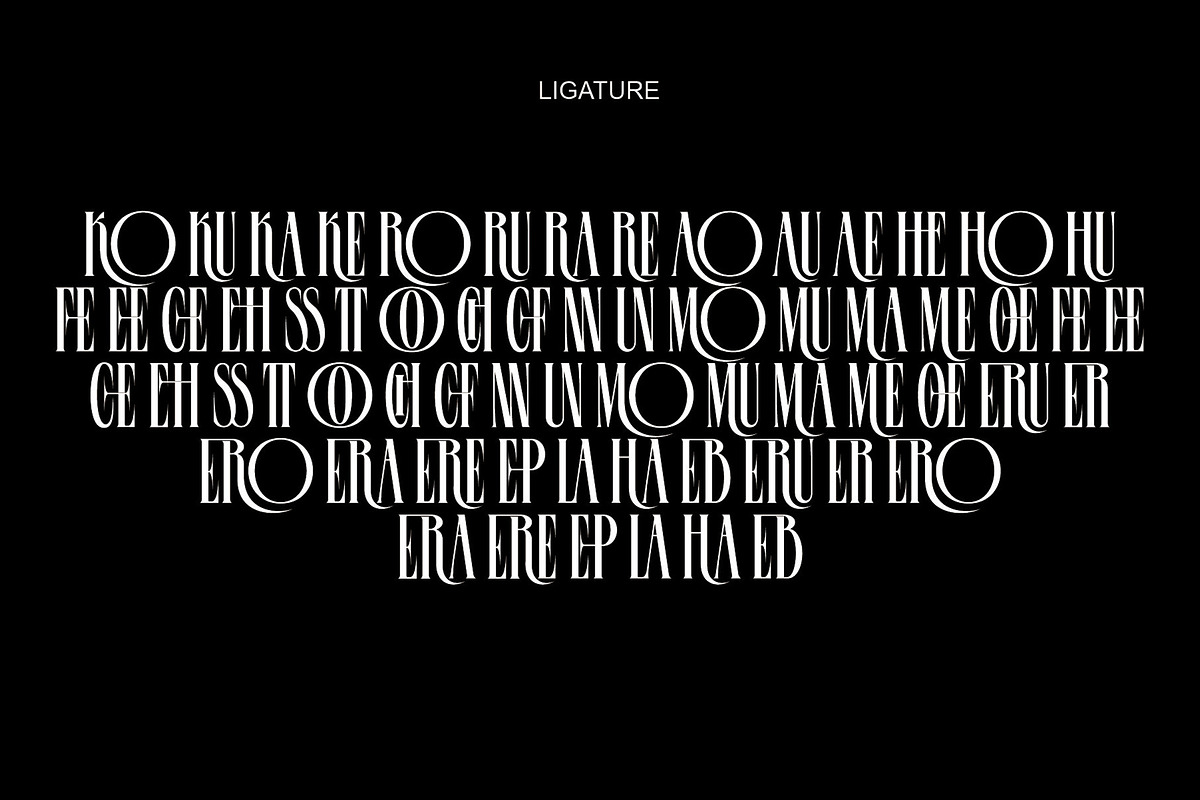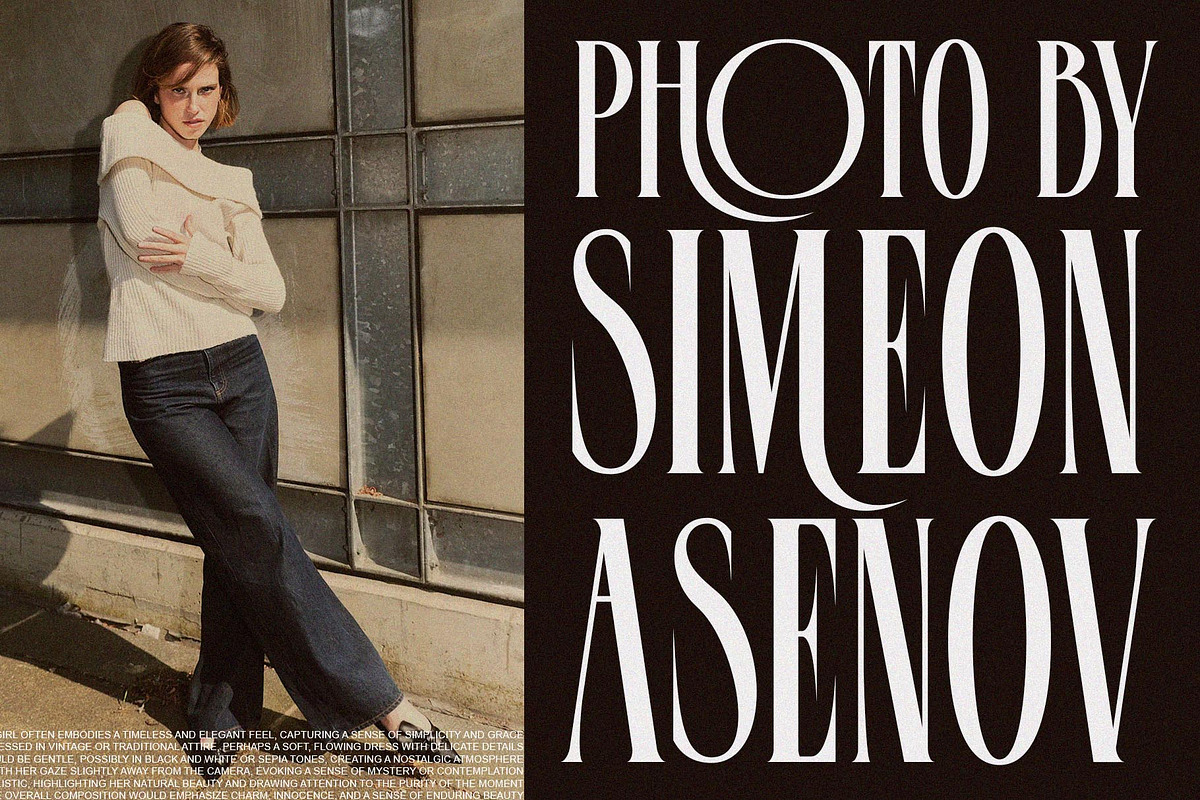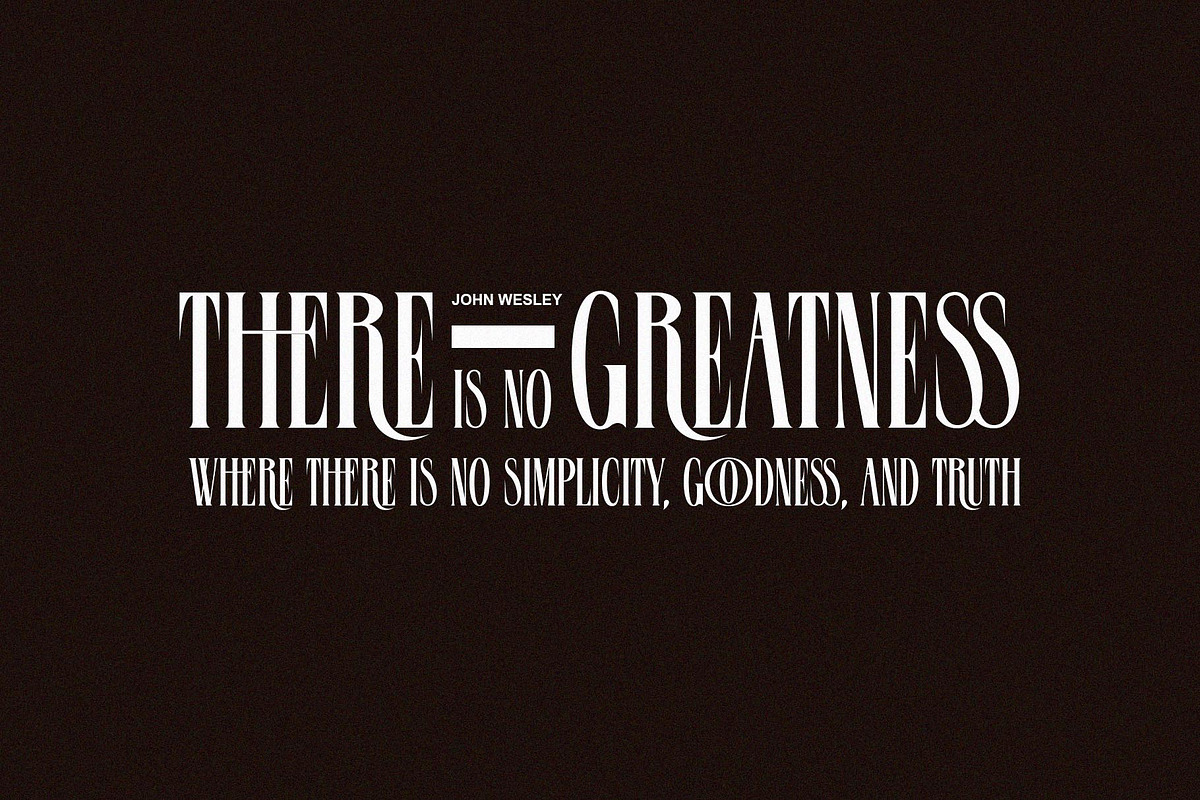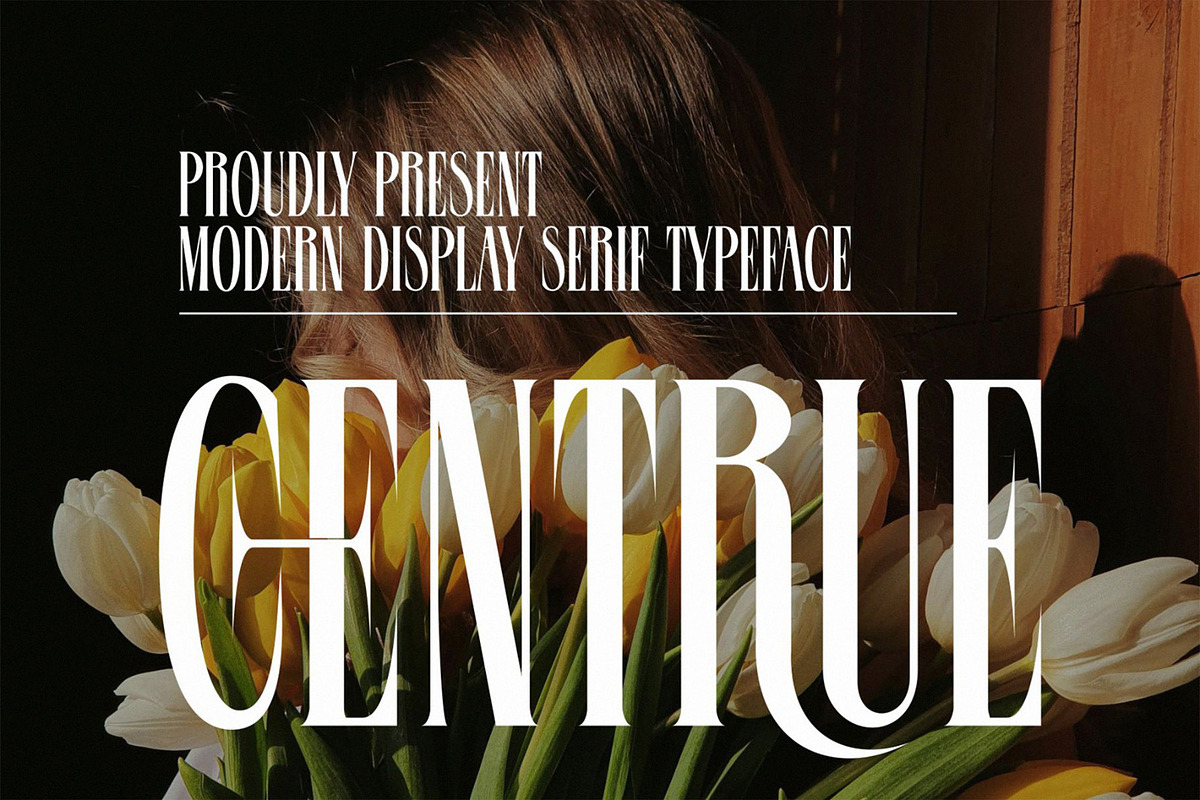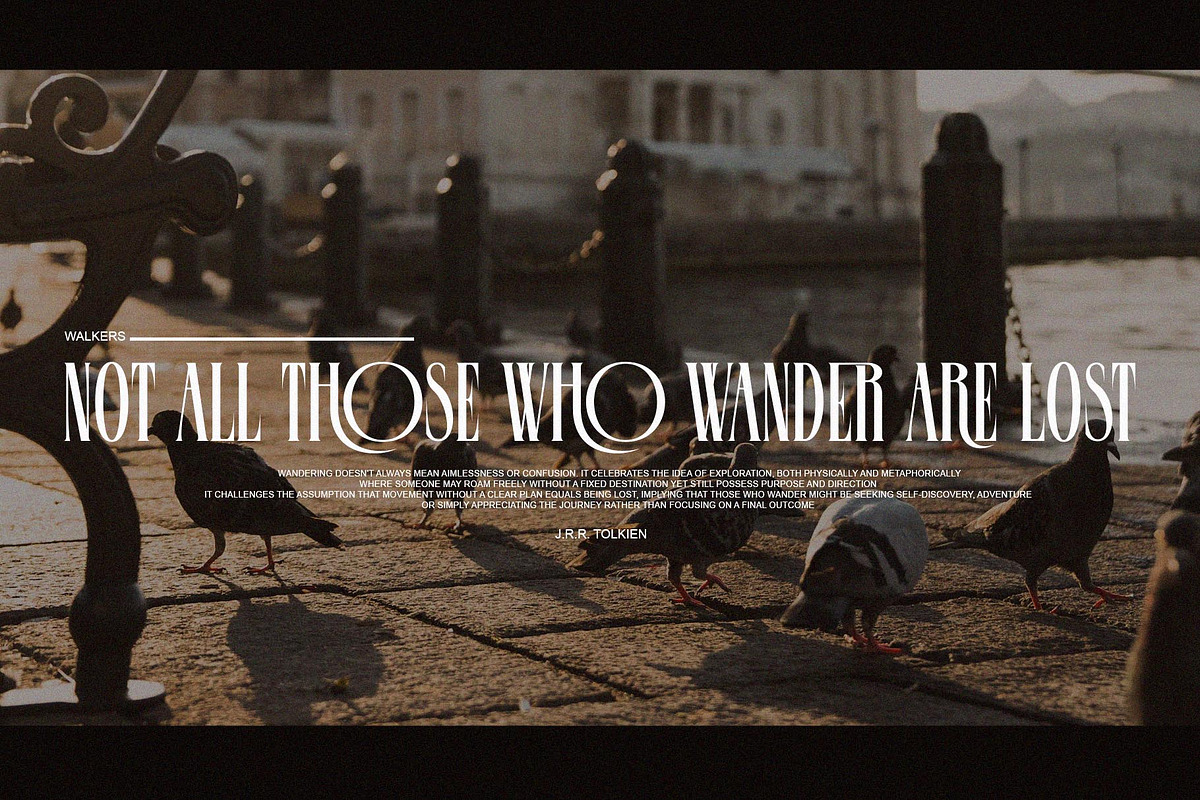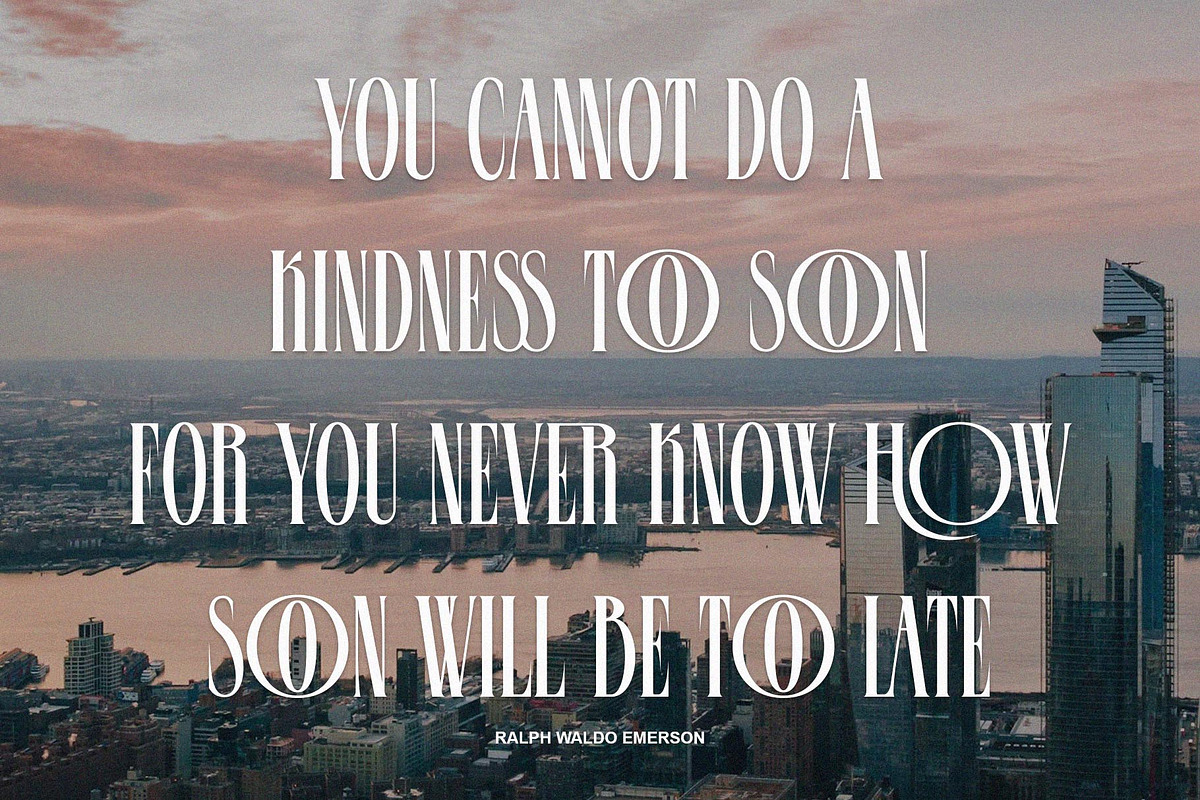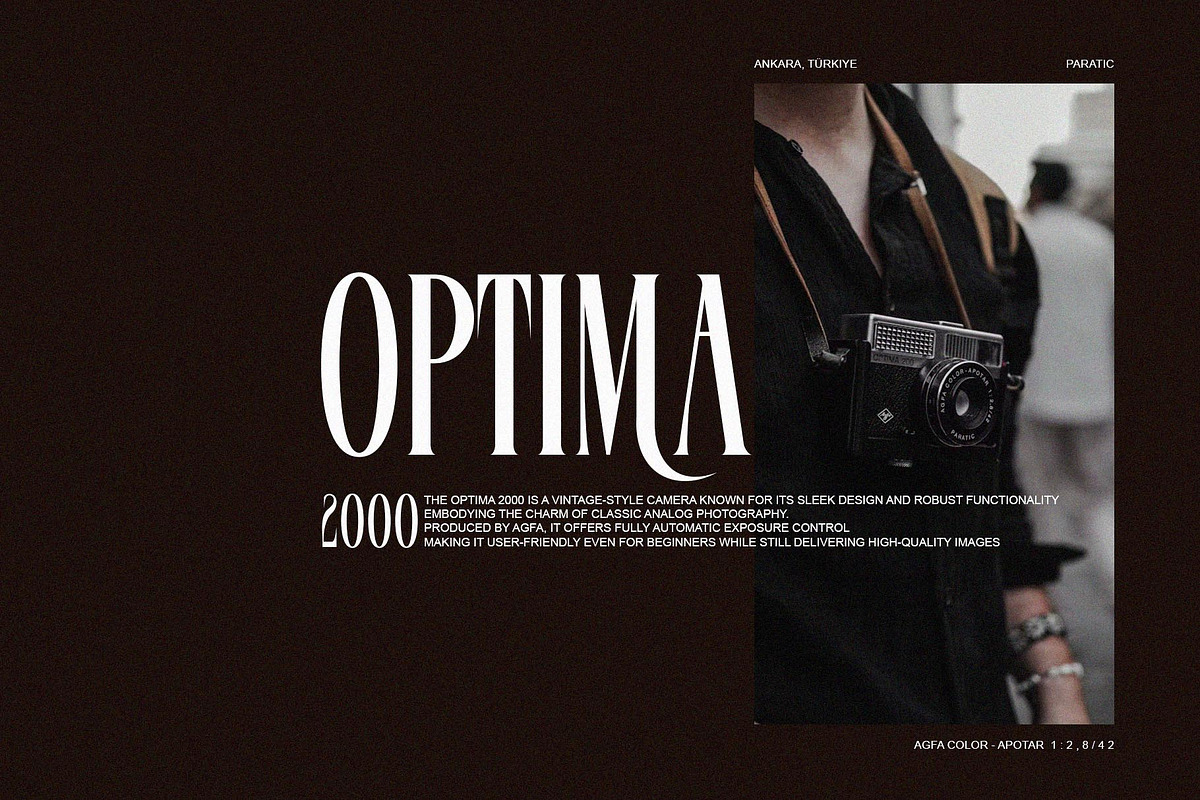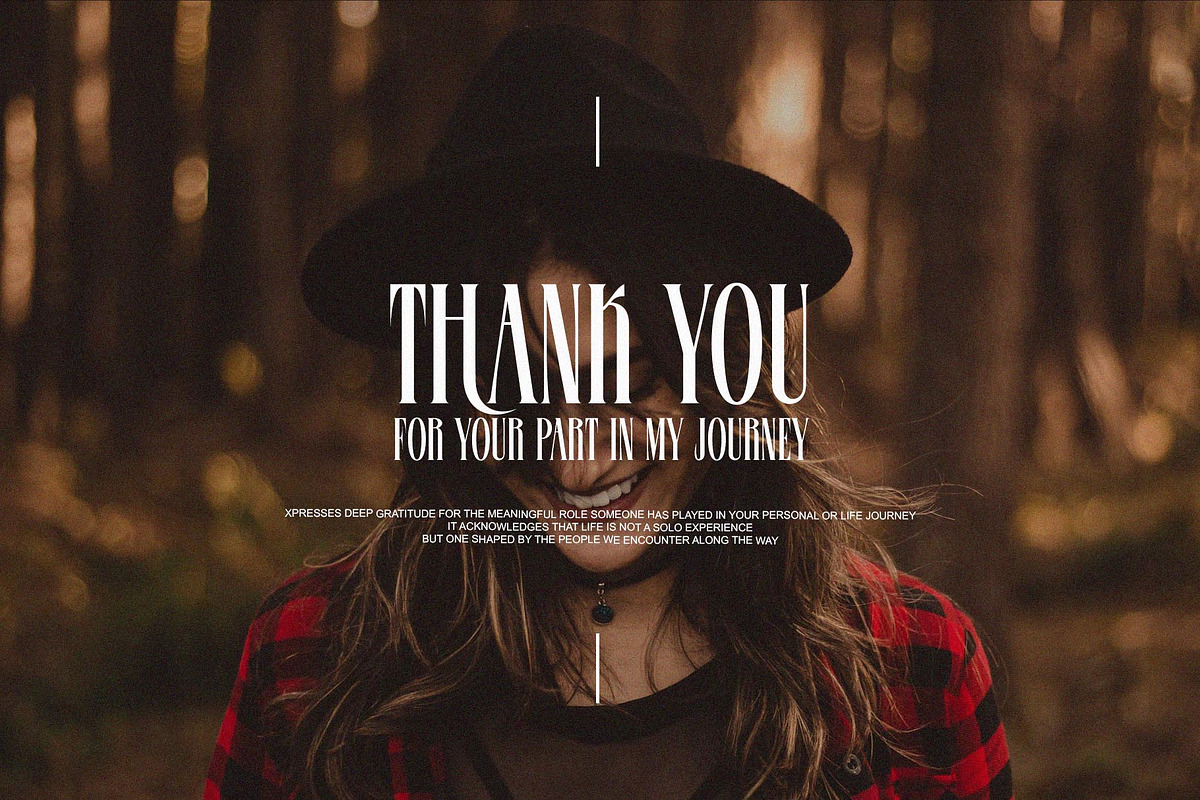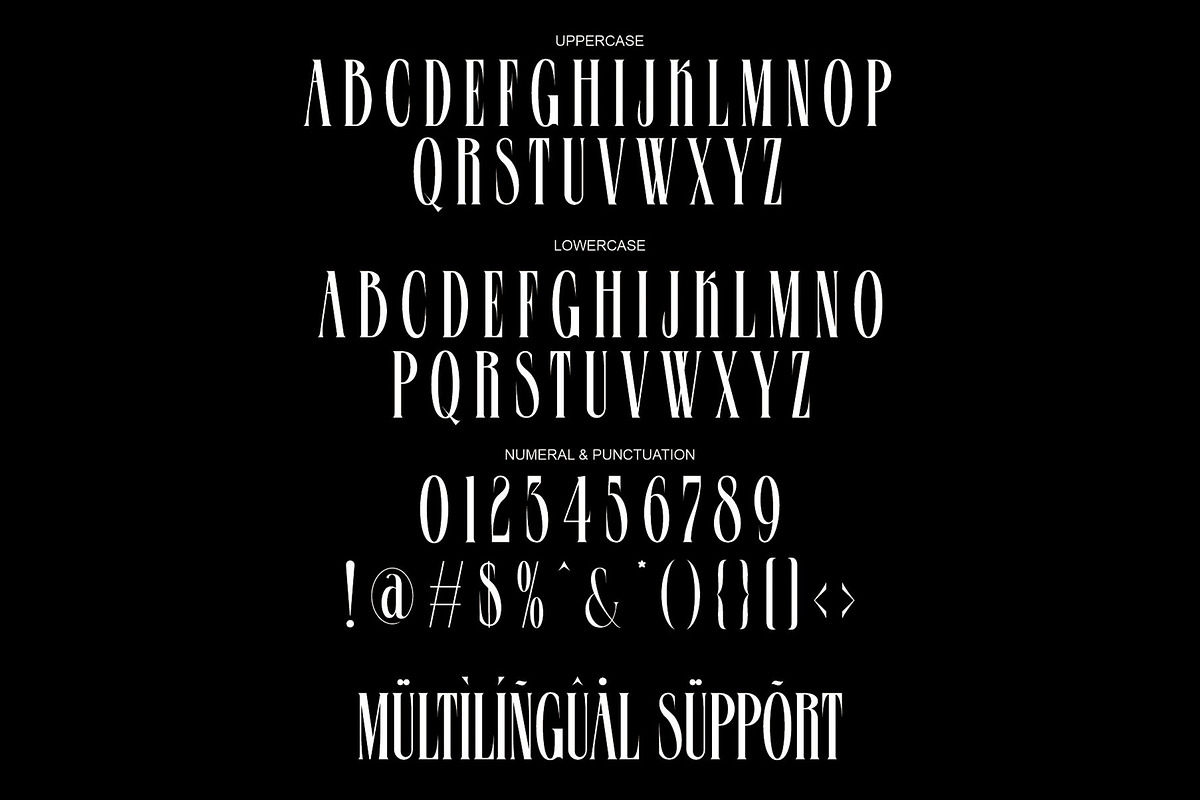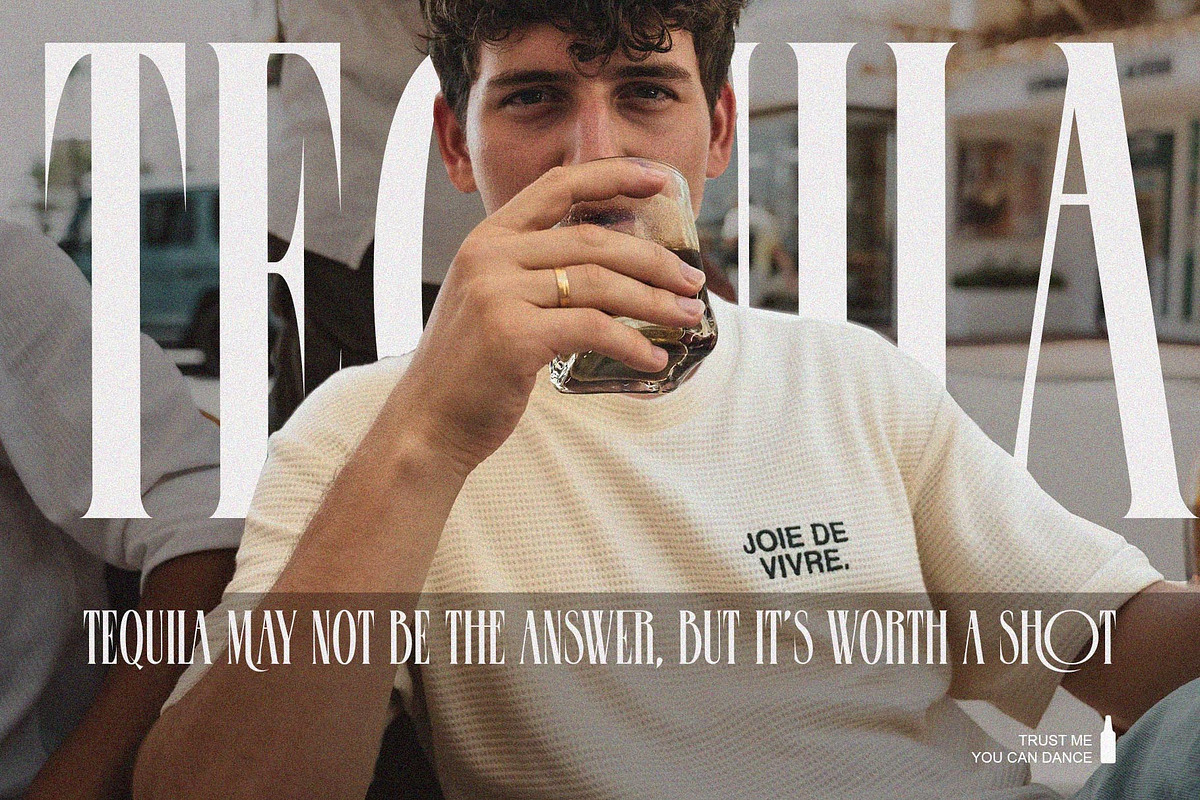
Centrue Modern Display Serif
Introducing Centrue, a serif modern font that captures a sense of freedom and natural beauty. Inspired by soft, rolling landscapes and golden hues, Caikera is a font that feels both grounded and graceful. With its fluid ligatures and balanced curves, this typeface brings an effortless elegance to any design. Whether you're creating feminine branding or adding a delicate touch to your typography, Centrue is the perfect choice for those who value both simplicity and style.